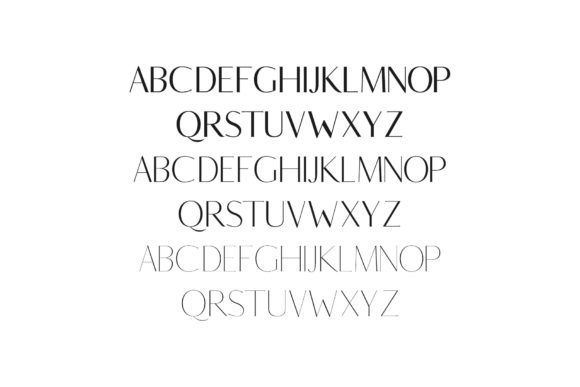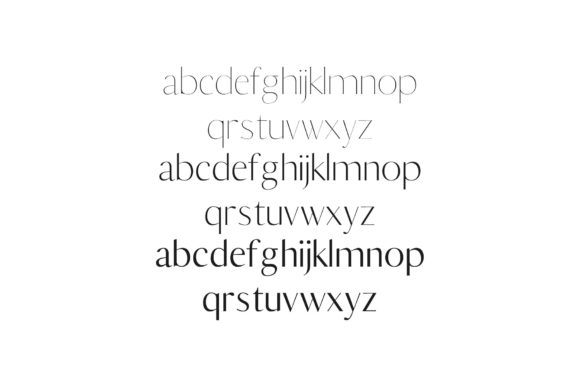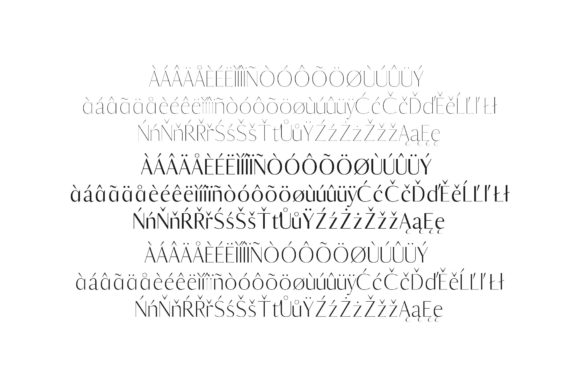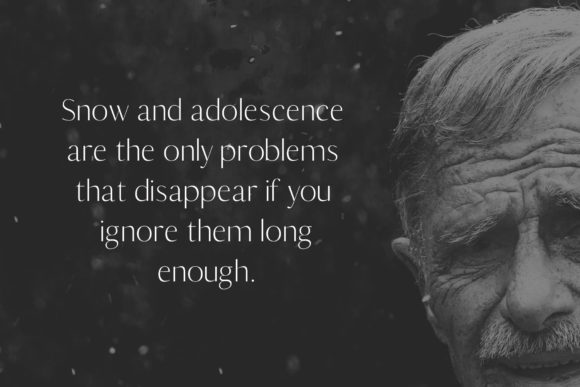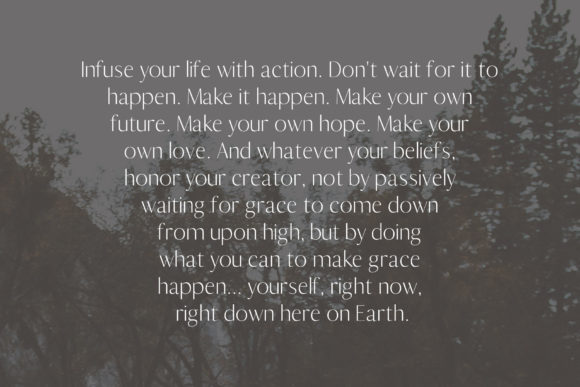
Uncovering the Perfect Font for Your Next Project
Have you ever stared at a blank page, trying to come up with the perfect headline or title for your project? The words won’t come, and the cursor blinks mockingly, taunting you to get creative. But then, it hits you – a spark of inspiration, a burst of clarity, and suddenly the words start flowing. That’s exactly what happened when designers first laid eyes on the Berton Family Font.
This classy and timeless sans serif font family is a masterclass in minimalism, with neat and elegant characters that make it perfect for a wide range of applications, from headlines and magazines to small text and stationery. As a designer, you know how crucial the right font can be in making your project stand out. The Berton Family Font is a valuable addition to any designer’s toolkit, offering a level of sophistication and refinement that’s hard to find in other fonts.
Berton Family Font Key Features
- Font Family: Berton Family Font is a superfamily of fonts consisting of serif and sans-serif fonts.
- Character Set: Supports a wide range of languages, including Latin, Cyrillic, and Greek alphabets, with over 600 glyphs.
- Unique Characteristics: Berton Family Font features a unique blend of classic and modern design elements, with subtle variations in serif and sans-serif styles.
Berton Family Font Review
Overall, I think the Berton Family Font has some great qualities that make it a solid choice for designers. ✨ First off, its versatility is a major plus. It comes in several weights and styles, making it suitable for a wide range of applications, from body text to display headings. The font’s classic feel also lends itself well to traditional and formal designs.
Another aspect I appreciate is the font’s legibility. Even at smaller sizes, the Berton Family Font remains clear and easy to read, which is essential for any design project. The font’s x-height is also well-balanced, making it a great choice for longer blocks of text.
However, there are some limitations to consider. ⚠️ One major drawback is the font’s lack of uniqueness. In a crowded market, it’s not particularly distinctive or memorable, which may make it harder to stand out in a competitive design landscape.
- Limited expressiveness
- Not particularly well-suited for modern or trendy designs
- Lacks a strong emotional connection
Overall, I’d say the Berton Family Font is a solid, dependable choice, but it may not be the best fit for designers looking to push the boundaries of typography or create something truly memorable.
Use the Berton Family Font for:
- Food and beverage labels
- Wedding and event signage
Experiment with different font styles and combinations to find the perfect look for your project.